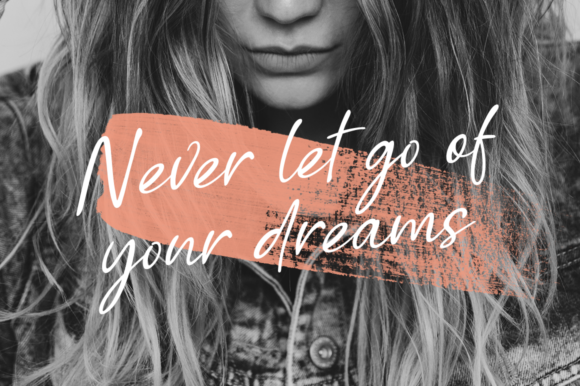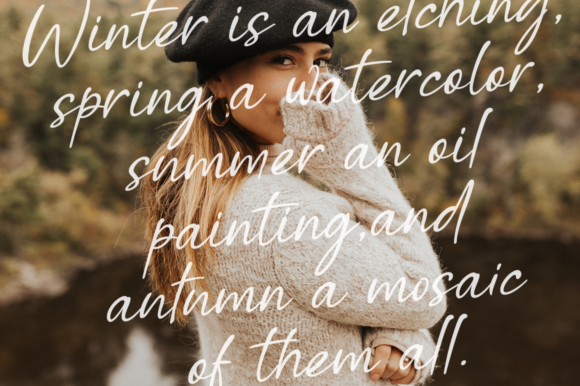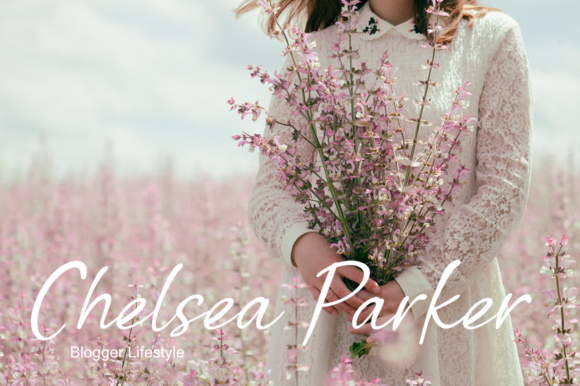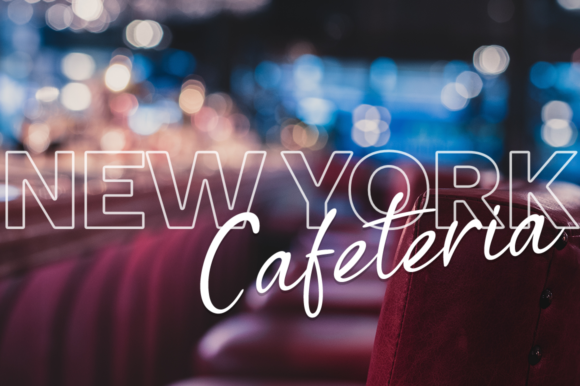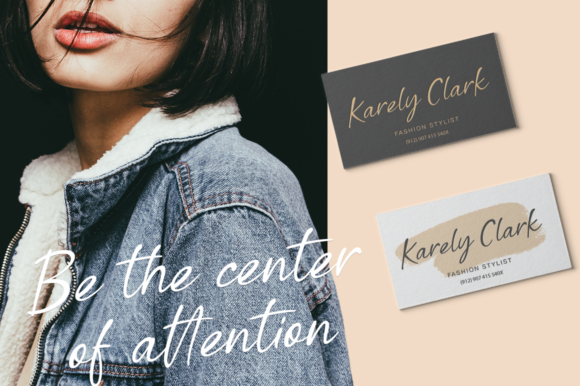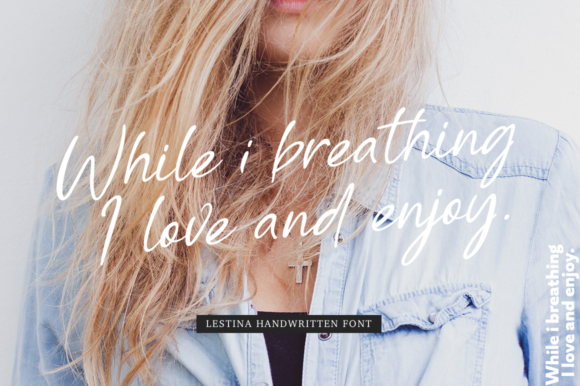
Introduction to Lestina Font Font
Fonts play a crucial role in design, and the Lestina Font font is a typeface that brings both character and versatility to any project. Whether you’re working on a branding project, a website, or a print design, the Lestina Font font offers a unique style that can elevate your work.
Lestina is a beautiful and elegant handwritten font.
You can use it to create logo or templates, invitations, blog, branding, marketing, book covers, magazines, advertising, stationery, logo design and much more This font is PUA encoded which means you can access all of the glyphs and swashes with ease.
Key Features of Lestina Font Font
Why Choose Lestina Font Font?
The Lestina Font font is more than just a typeface – it’s a design tool that helps you communicate your message with style and clarity. Its unique character set and versatile design make it suitable for a wide range of applications, from elegant invitations to bold headlines.
With its carefully crafted letterforms and balanced proportions, the Lestina Font font ensures readability and visual appeal across all mediums.
What makes Lestina Font font special?
The Lestina Font font stands out with its unique design, exceptional readability, and versatility across various design applications.